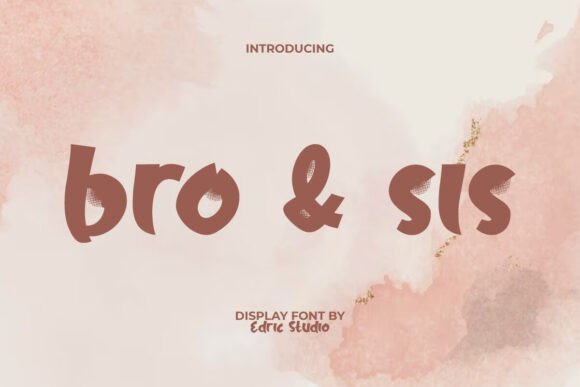
Where Creativity Meets Elegance: Unveiling the Magic of Bro & Sis Font
Have you ever been stuck on a design project, staring blankly at your screen, searching for that perfect font to bring your vision to life? We’ve all been there. But what if you stumbled upon a font that not only elevates your design but also adds a touch of sophistication and elegance? Welcome to the world of Bro & Sis Font, a unique Japanese brush display font that’s about to revolutionize your creative endeavors.
Bro & Sis Font is more than just a font – it’s an experience. With its sharp and solid letterforms and inner corners that create a beautiful blurry effect, this font is sure to leave a lasting impression. Whether you’re designing for apps, billboards, or websites, Bro & Sis Font is the perfect addition to your design arsenal. As a designer, you’ll appreciate the versatility and value that this font brings to your projects, making it a must-have in your toolkit.
Bro & Sis Font Key Features
- Font Family: A sans-serif font designed for a modern, casual look.
- Unique Characteristics: Features a unique, handwritten feel with subtle imperfections, giving it a friendly and approachable vibe.
Bro & Sis Font Review
As a designer, I was excited to try out the Bro & Sis Font. Here’s my honest review.
- The font’s playful and youthful vibe is perfect for modern branding projects.
- The weight and line variation offer a lot of flexibility for creative designers.
- The OpenType features allow for some interesting ligatures and swashes, adding a touch of personality to text.
- The font’s sans-serif style may not be suitable for all types of projects, particularly those requiring a more formal or traditional look.
- The font family could benefit from additional weights or styles to increase its versatility.
- Some characters may require manual adjustments to achieve the desired spacing or alignment.
Overall, I think Bro & Sis Font is a great choice for designers looking to add some personality to their work. While it may not be perfect for every project, it’s a fun and creative option that can add some much-needed flair to branding, logos, and marketing materials. With some additional development, I think this font has a lot of potential to become a go-to choice for designers of all levels.
Alternatives to “Bro & Sis Font” for Designers
Pacifico is a beautiful, elegant script font that is perfect for adding a touch of sophistication to your designs. It’s ideal for use in wedding invitations, greeting cards, and other special occasions where you want to convey a sense of luxury and refinement.
Compared to Bro & Sis Font, Pacifico has a more refined and polished look, making it suitable for high-end designs. While Bro & Sis Font has a fun, playful vibe, Pacifico is more elegant and sophisticated.
Great Vibes is a modern, cursive script font that is perfect for use in designs where you want to convey a sense of fun and playfulness. It’s ideal for use in social media graphics, advertising, and other designs where you want to grab attention and create a sense of excitement.
Compared to Bro & Sis Font, Great Vibes has a more dynamic and energetic feel, making it suitable for use in designs that require a lot of movement and action. While Bro & Sis Font has a more casual, laid-back vibe, Great Vibes is more lively and engaging.